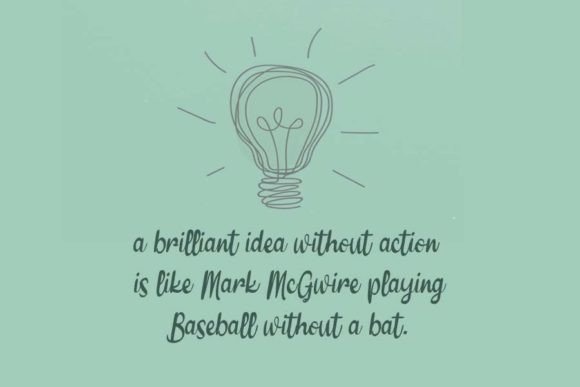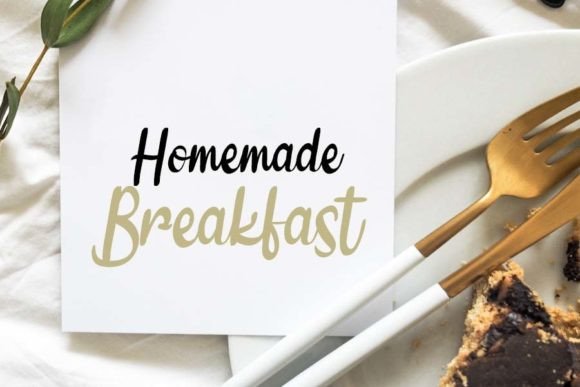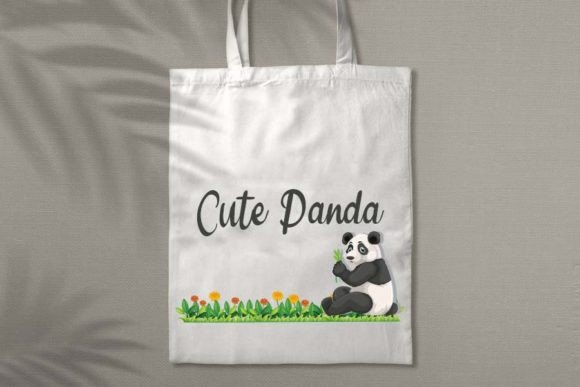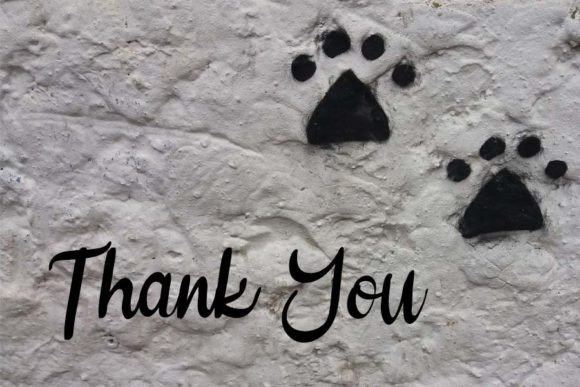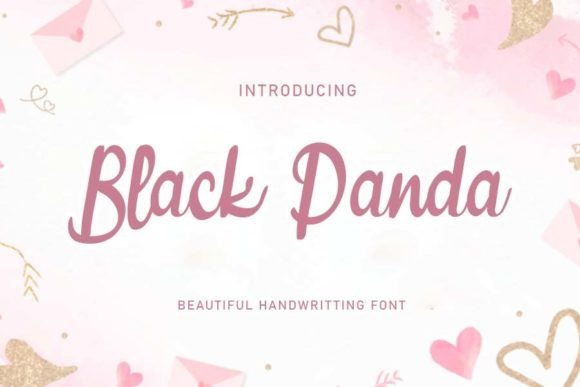
Introducing Black Panda Font: The Ultimate Playful Handwritten Font
Are you tired of using the same old fonts in your designs? Look no further! Black Panda Font is here to revolutionize your creative projects with its simple, playful, and joyful vibe. This bright and cheerful handwritten font is perfect for designers and crafters who want to add a personal touch to their work.
What Makes Black Panda Font So Special?
Black Panda Font is a unique and refreshing addition to the world of typography. Its simplicity and playfulness make it an excellent choice for a wide range of design projects, from children’s books and educational materials to branding, packaging, and social media graphics. The font’s joyful and bright personality is sure to make each of your designs come alive!
Key Features of Black Panda Font
- Simple and Playful: Black Panda Font boasts a carefree and effortless design that’s perfect for creating fun and engaging content.
- Handwritten Style: The font’s handwritten style gives it a personal and approachable feel that’s ideal for designs that require a human touch.
- Joyful and Bright: Black Panda Font is designed to bring a smile to your face and make your designs shine with its vibrant and energetic personality.
- Versatile: This font is suitable for a wide range of design projects, from digital to print, and can be used for both personal and commercial purposes.
Why Designers and Crafters Love Black Panda Font
Designers and crafters adore Black Panda Font for its unique ability to add a touch of personality to their work. Whether you’re creating:
- Children’s Books: Black Panda Font is perfect for storybooks, activity books, and educational materials that require a fun and engaging font.
- Branding and Packaging: The font’s playful and cheerful personality makes it an excellent choice for branding, packaging, and label design.
- Social Media Graphics: Black Panda Font is ideal for creating eye-catching social media graphics, such as quotes, posters, and flyers.
- Crafting Projects: The font is also perfect for crafters who want to add a personal touch to their DIY projects, such as handmade cards, scrapbooking, and journaling.
Black Panda Font is a game-changer for designers and crafters who want to add a touch of personality to their work. Its simple, playful, and joyful vibe makes it an excellent choice for a wide range of design projects. With its versatility, ease of use, and unique personality, Black Panda Font is sure to become your go-to font for all your creative endeavors.